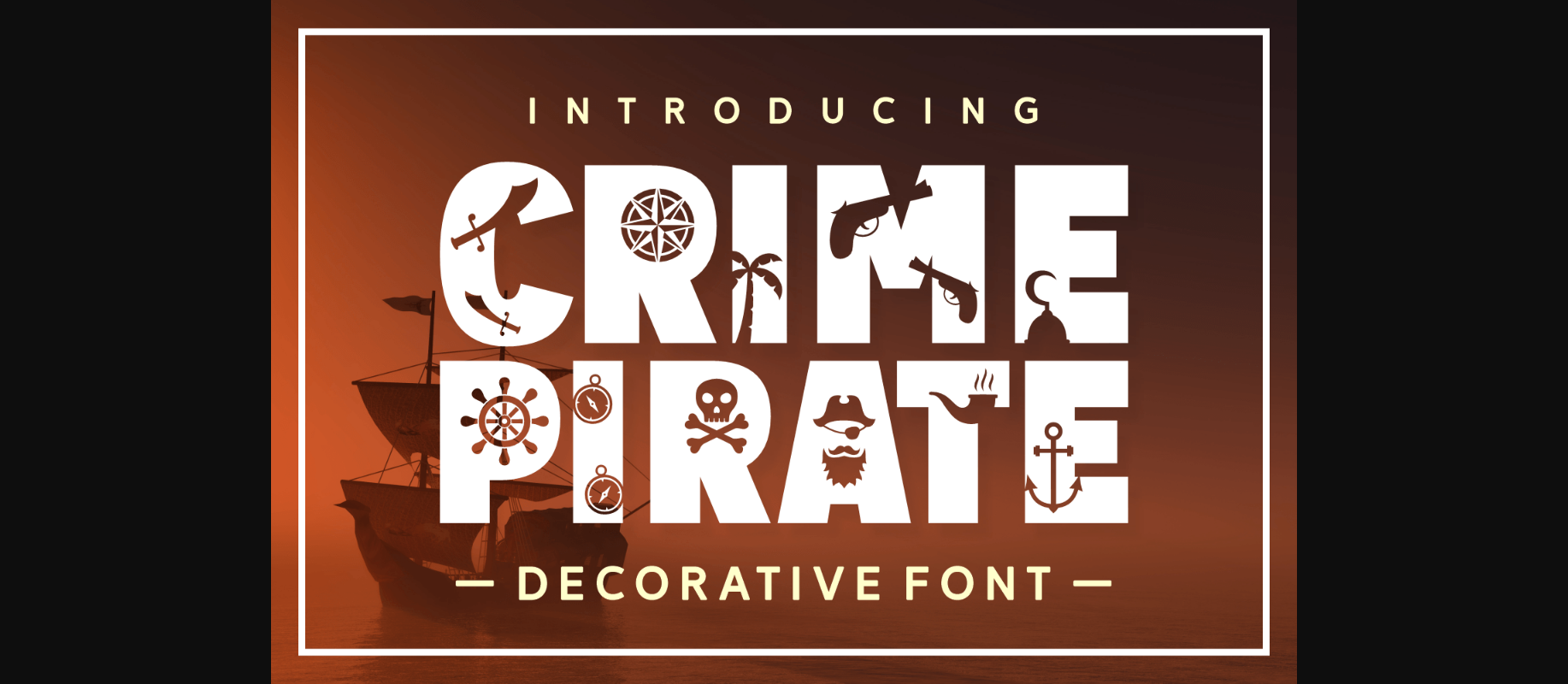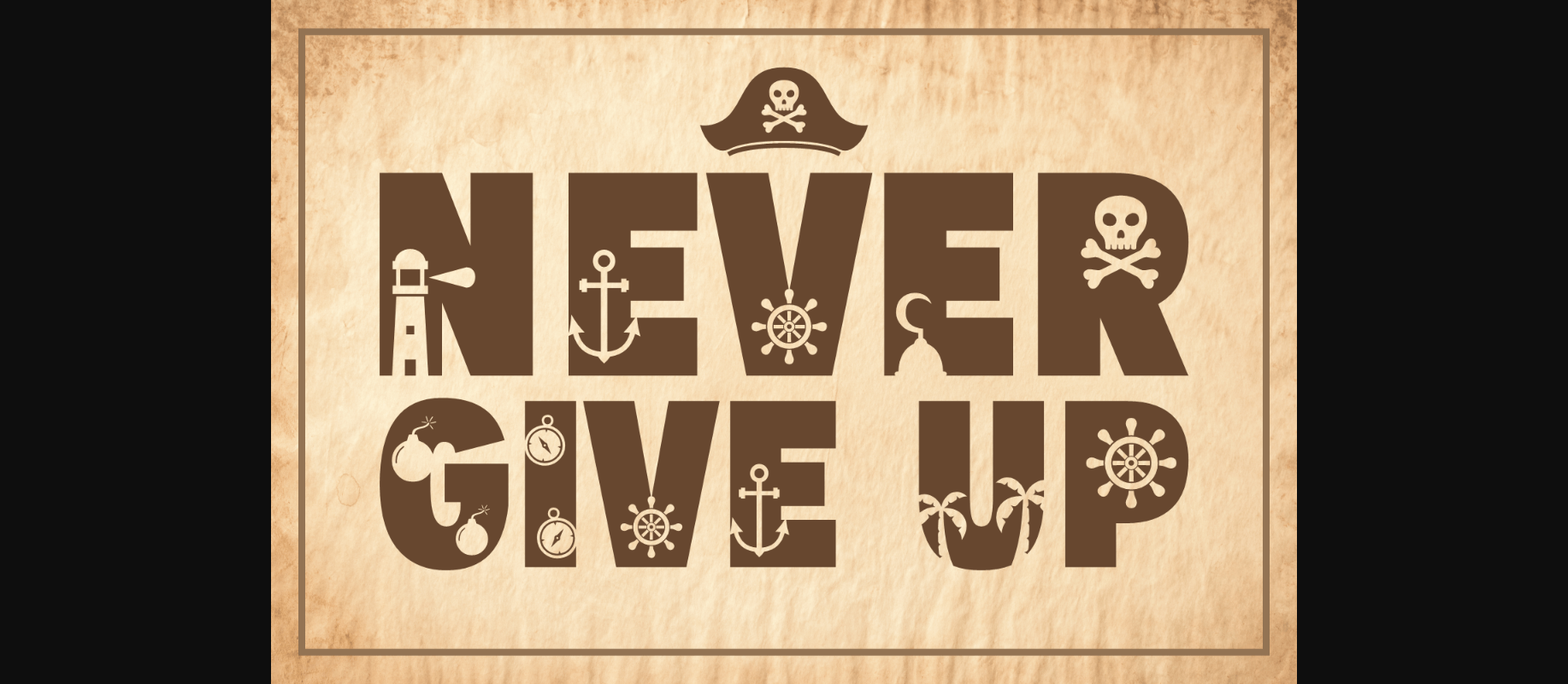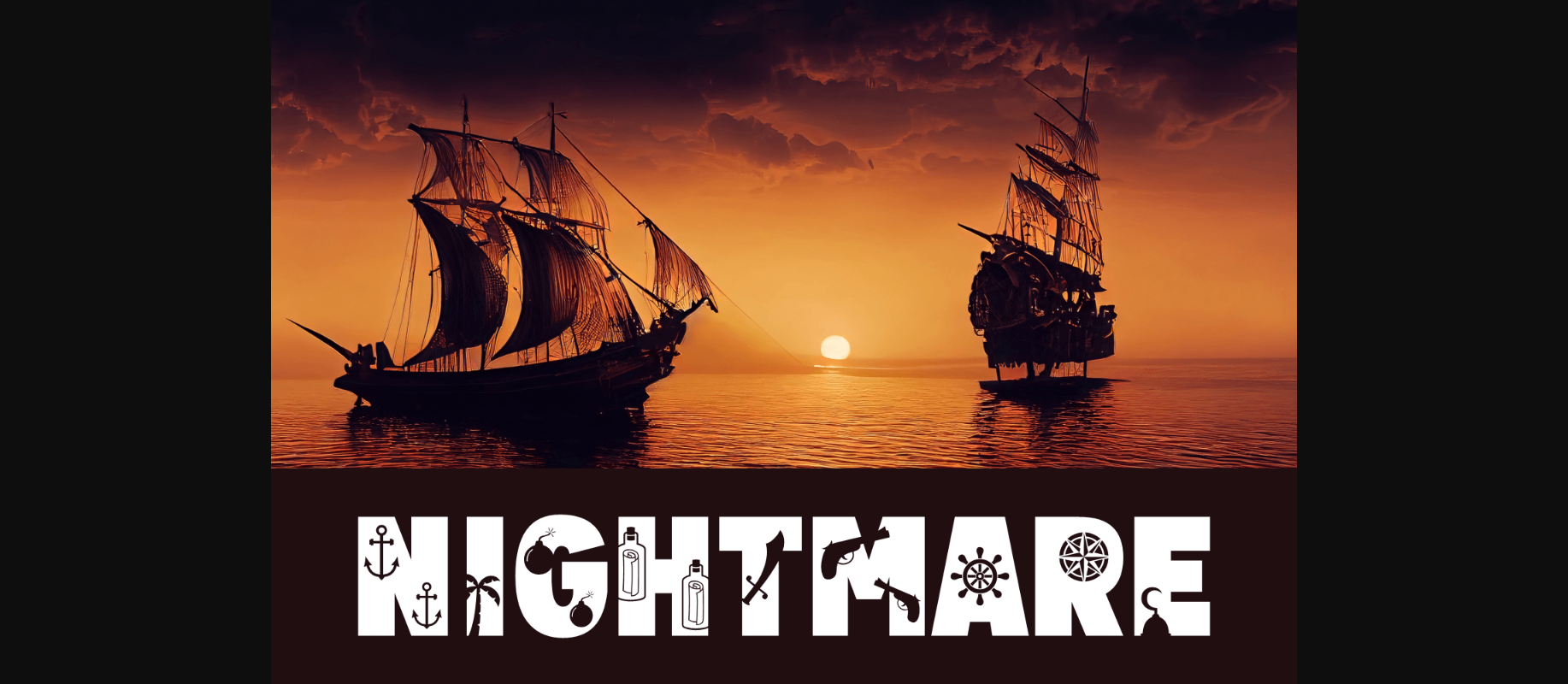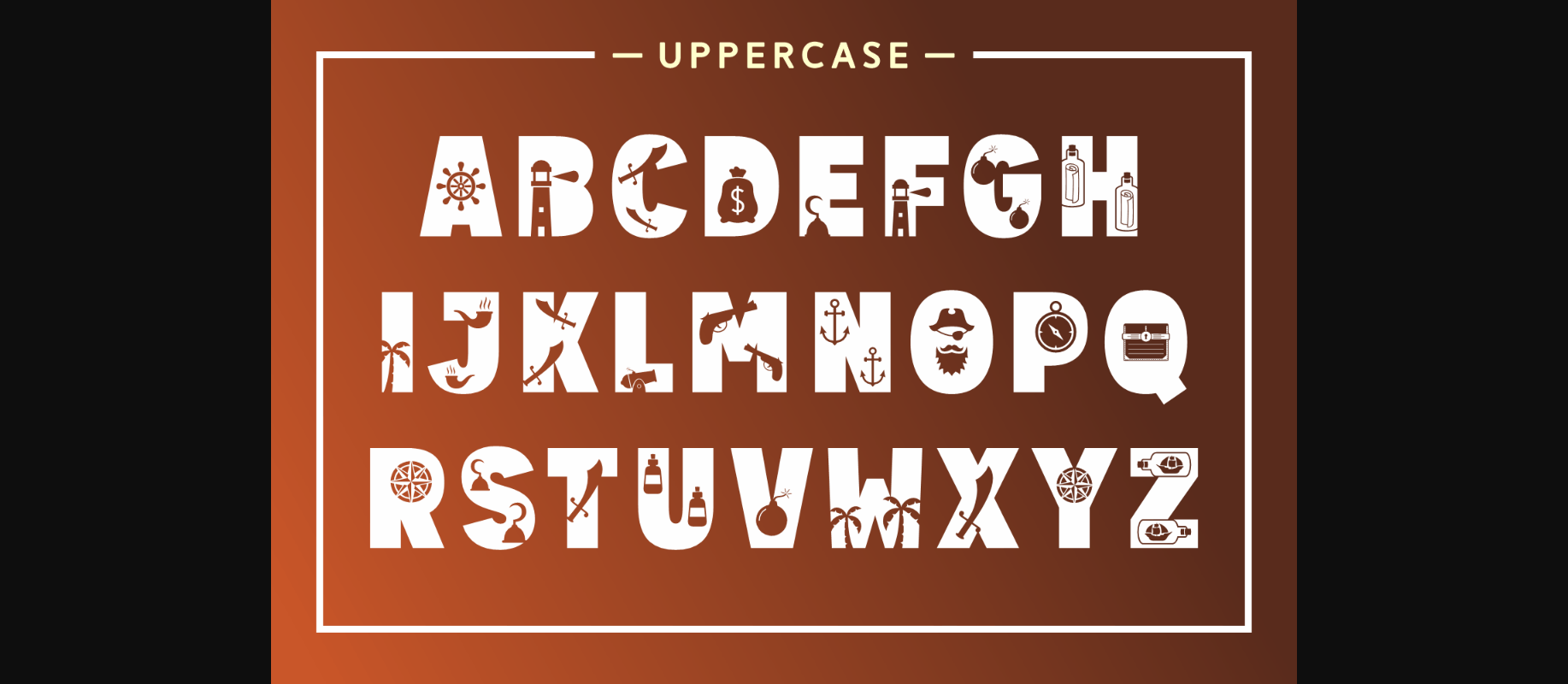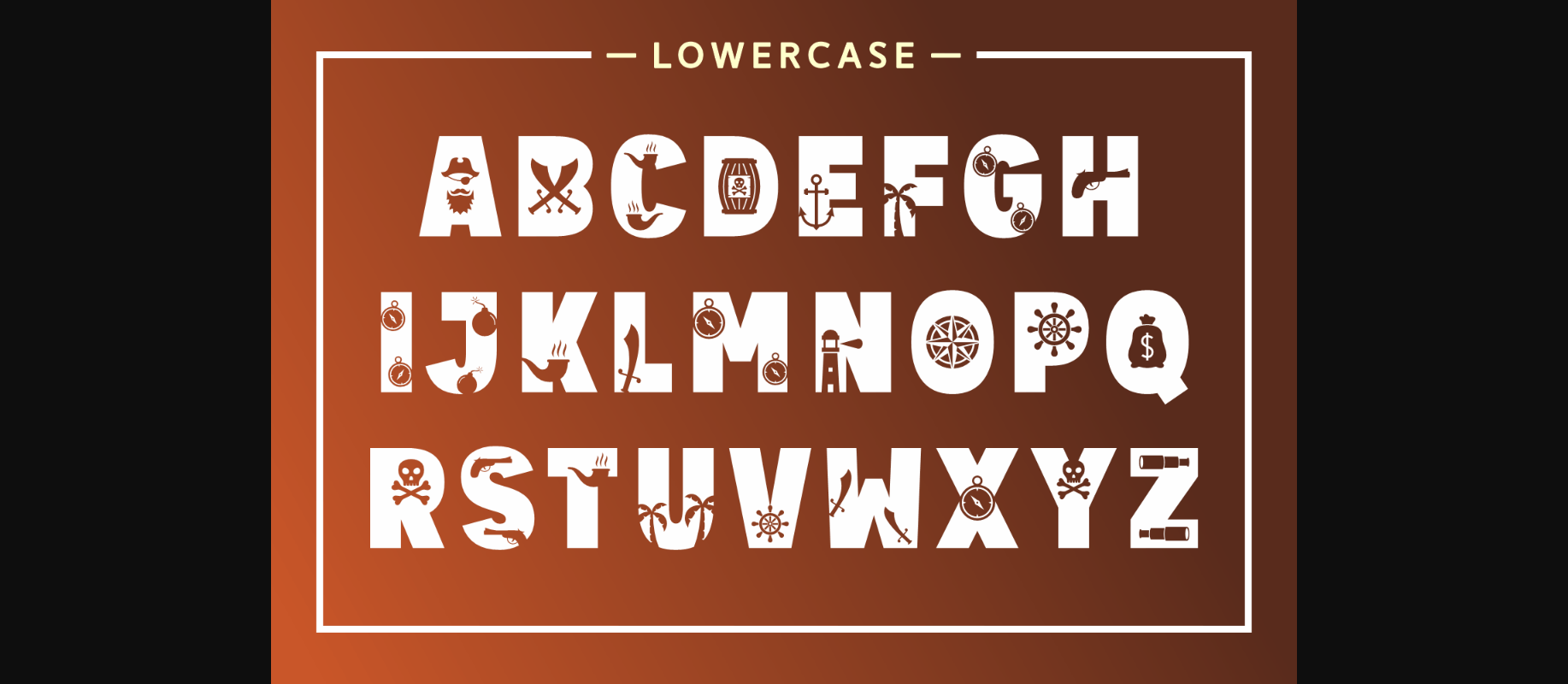
About Crime Pirate Font
Crime Pirate is a playful and interesting decorative font! Add a little spice to your next design project by using it. Suited perfectly for pirate themes books market, online games, stationery, school supplies font, poster, movie title, youtube covers, youtube thumbnails, social media page covers, and many more.